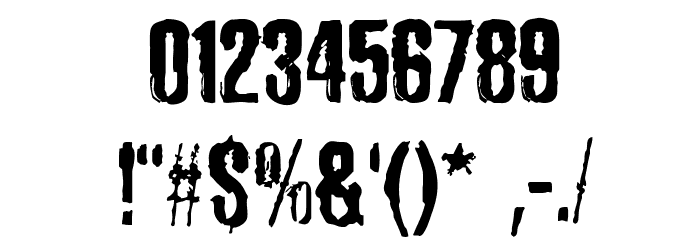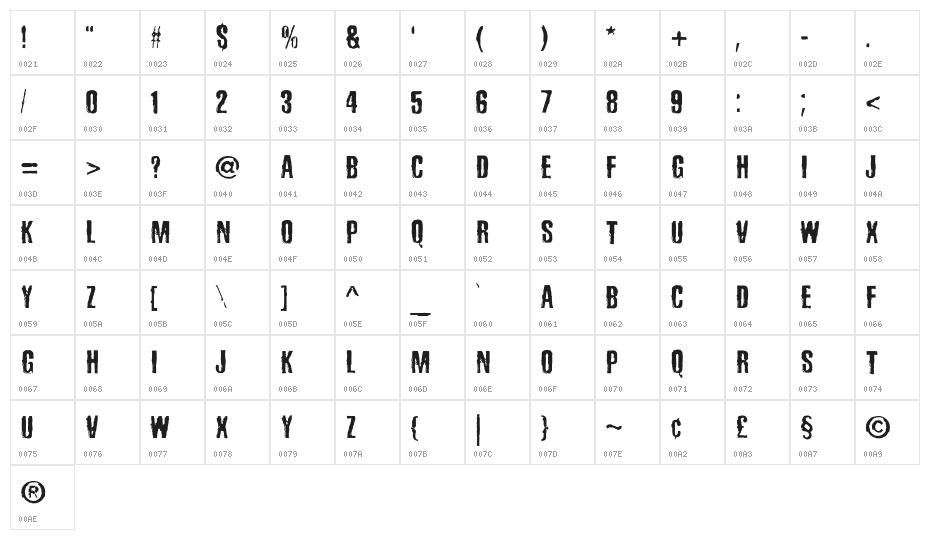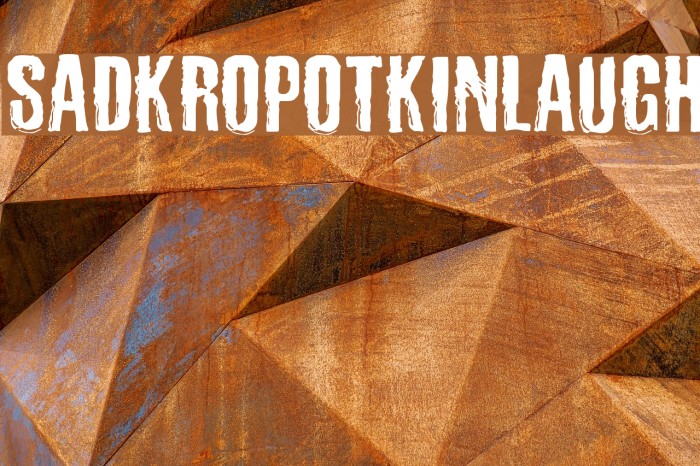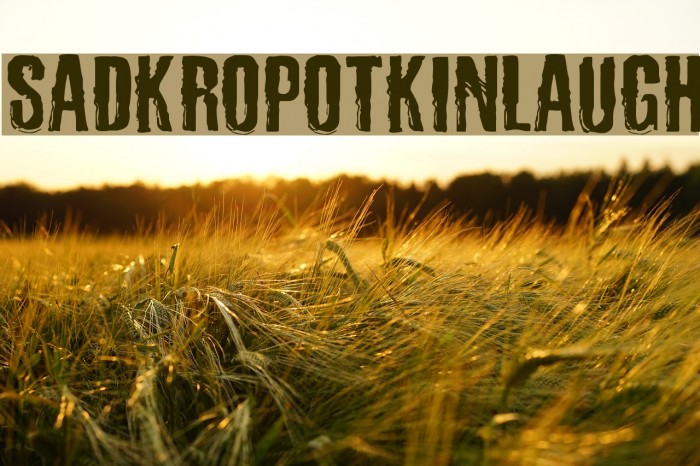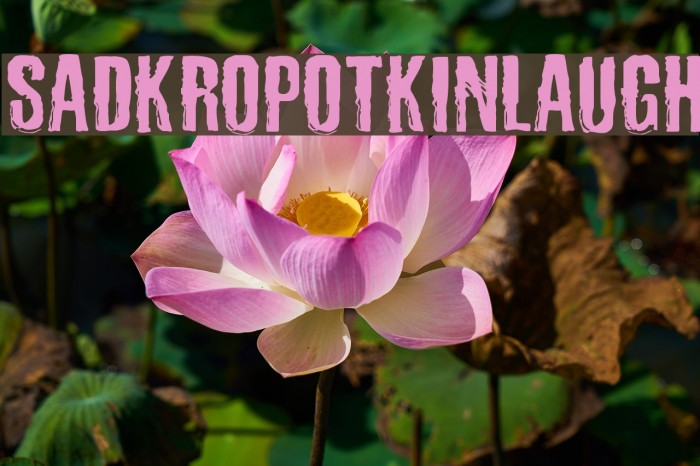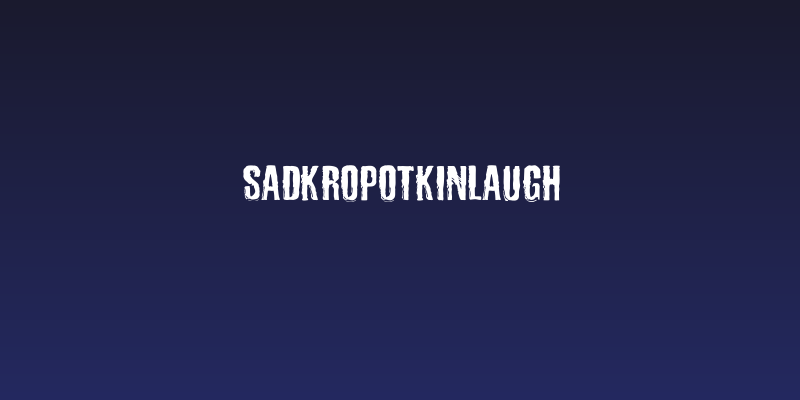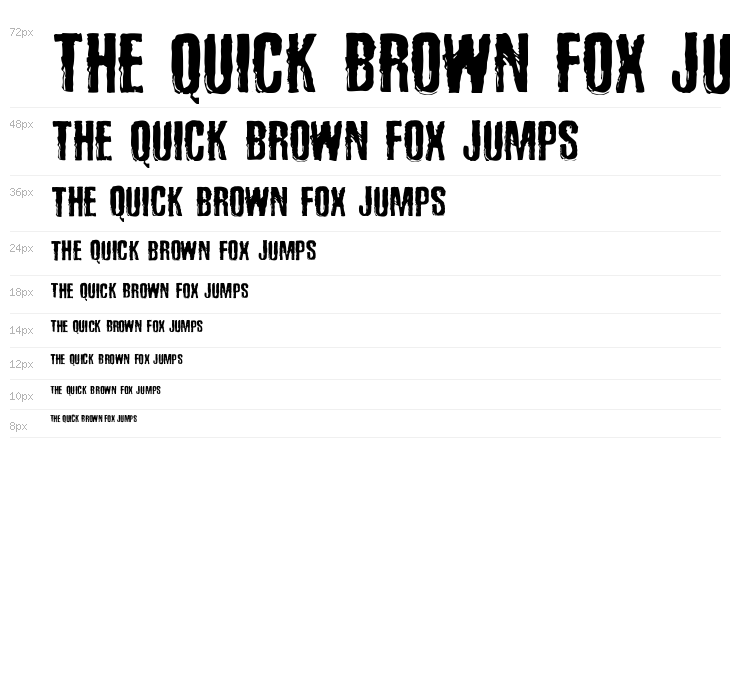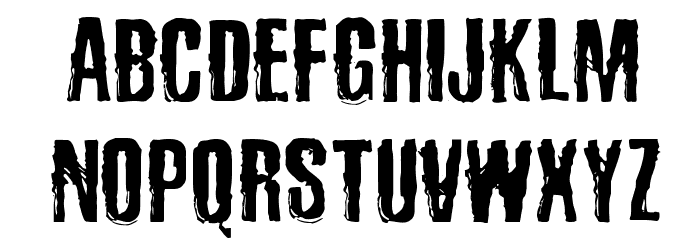
SadKropotkinLaugh Font
SadKropotkinLaugh Description
This font features a distressed, grunge style with rough edges and uneven strokes, giving it a rugged and worn appearance. The uppercase and lowercase letters maintain a consistent height, while the numbers and special characters follow the same distressed aesthetic. The font's bold and impactful presence makes it ideal for projects that require a strong visual statement. Its unique texture adds character and depth, making it suitable for designs that aim to convey a sense of edginess or rebellion.
| Overall Style | Grunge, Edgy |
| Proposed Projects | Ideal for album covers, posters, streetwear branding, and edgy graphic designs. |